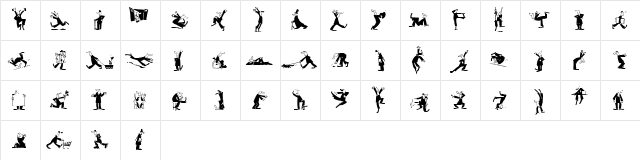
Maenneken LT Black
Design Context for Maenneken LT Typeface
Maenneken LT is a composed and adaptable typeface that performs quietly and consistently across a wide range of design contexts. Its slender proportions lend an understated elegance to any composition.